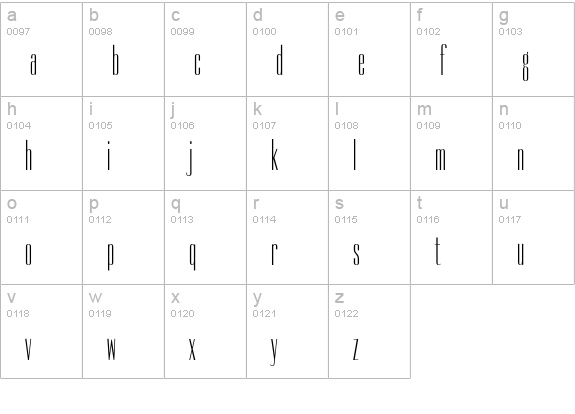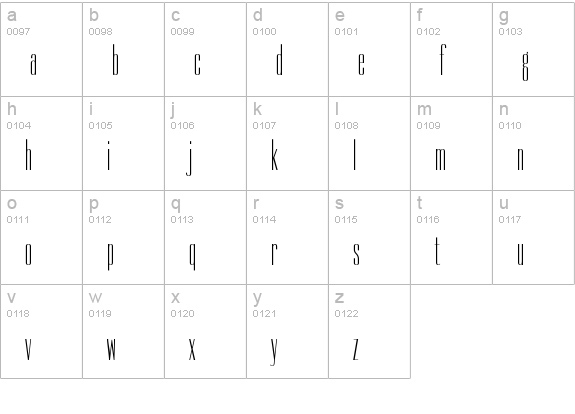
Empire-Regular Font Details
Empire-Regular is the standard, neutral variant in the Empire typeface family \xE2\x80\x94 well suited to general body text, paragraphs, and standard typographic work.
Empire-Regular font is a versatile and stylish typeface that exudes elegance and sophistication. With its timeless design and clean lines, this font is perfect for a wide range of design projects, from branding to invitations to web design. The classic yet modern look of Empire-Regular font makes it a popular choice for designers looking to add a touch of class to their work. The best part? Empire-Regular font is completely free to download at FontsMarket.com. This means that you can add this beautiful font to your collection without having to spend a dime. Whether you're a professional designer or a hobbyist looking to enhance your projects, Empire-Regular font is a fantastic choice that won't break the bank. Download it today and elevate your designs with this stunning typeface.